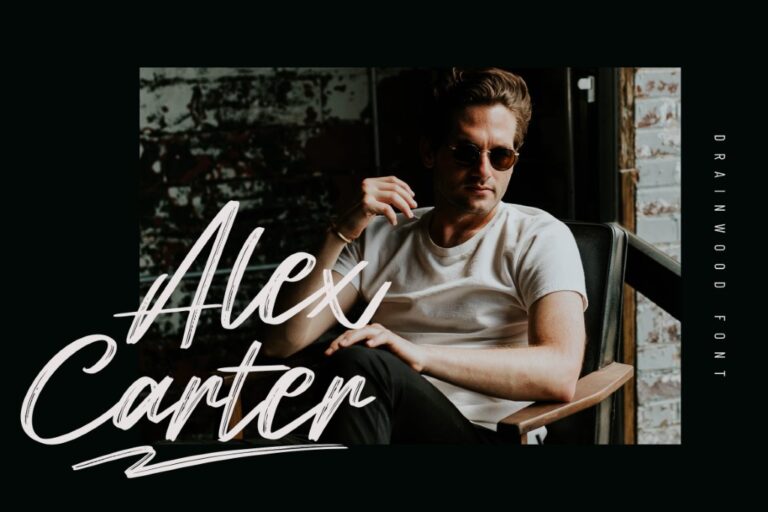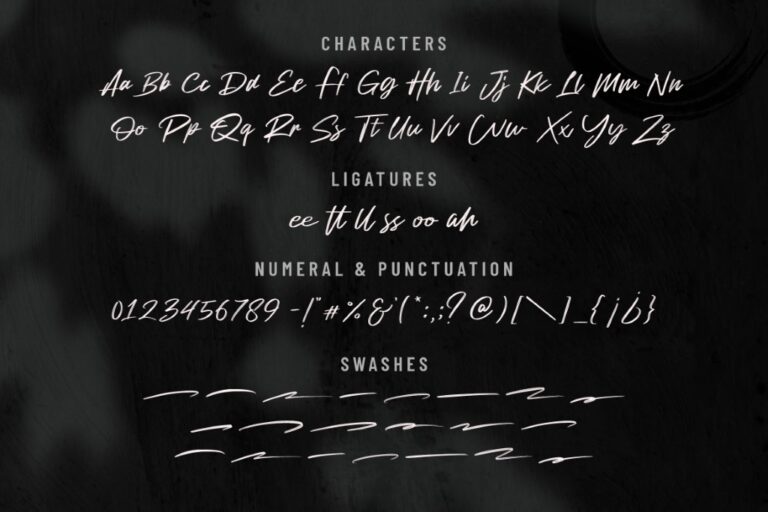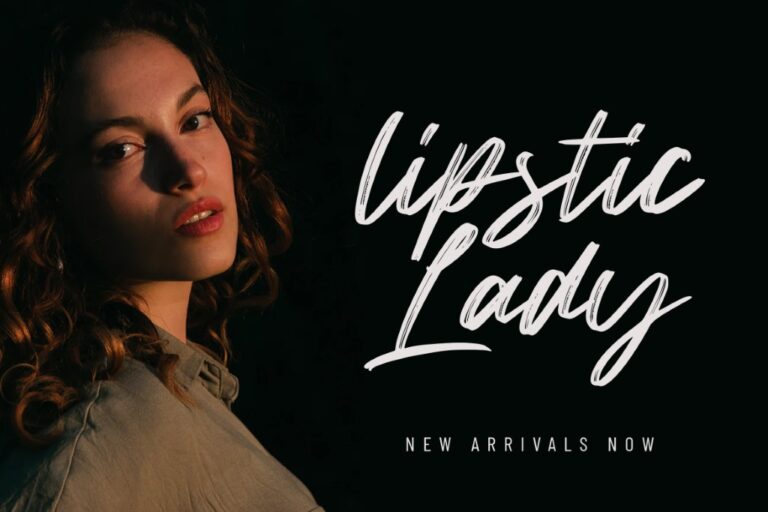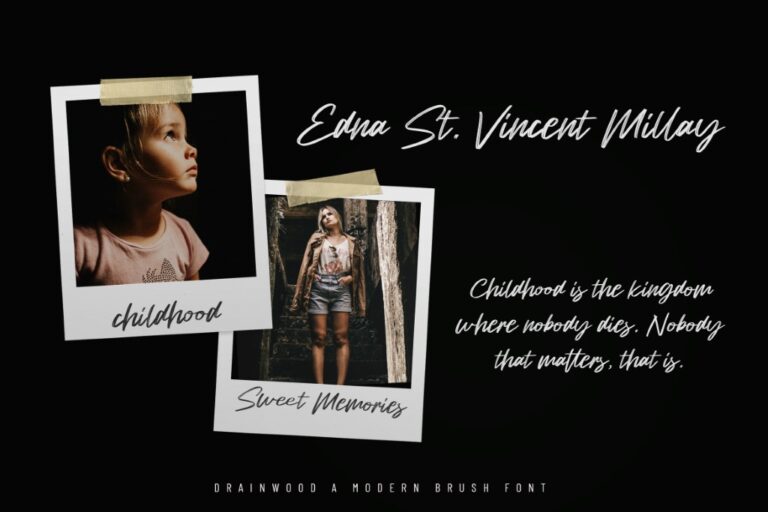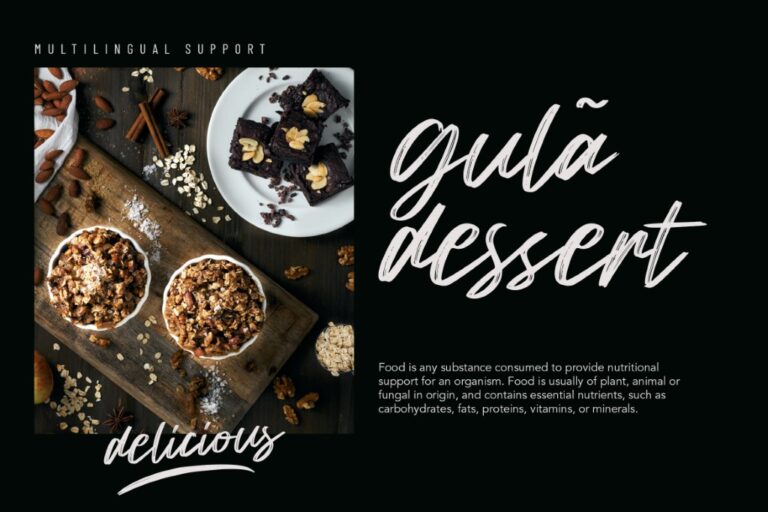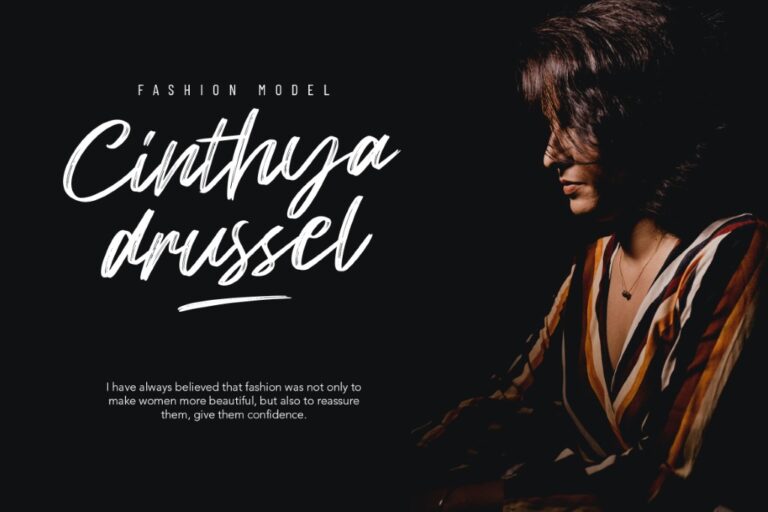
Drainwood
This is a brush font made manually in paper and dry brush pen.
Good and suitable for modern design project such as blog, web, logo, clothing, advertisement and book cover